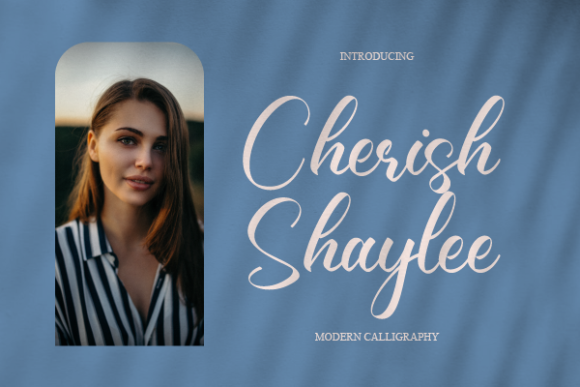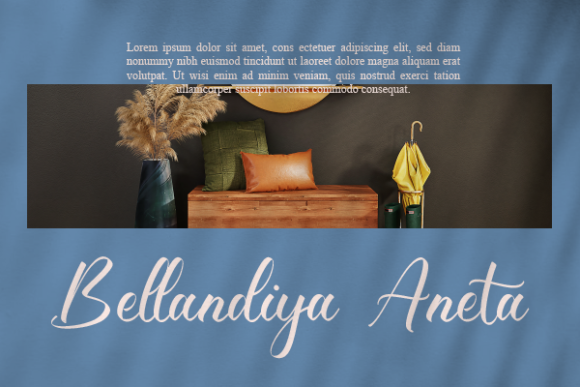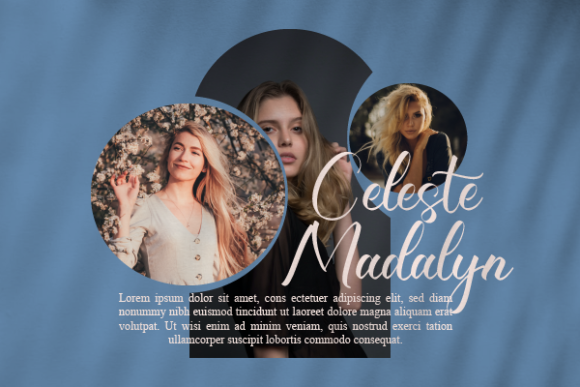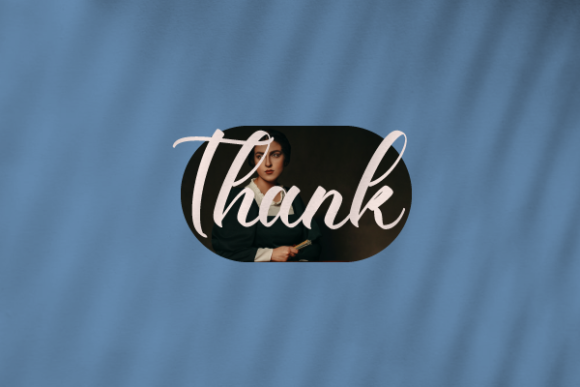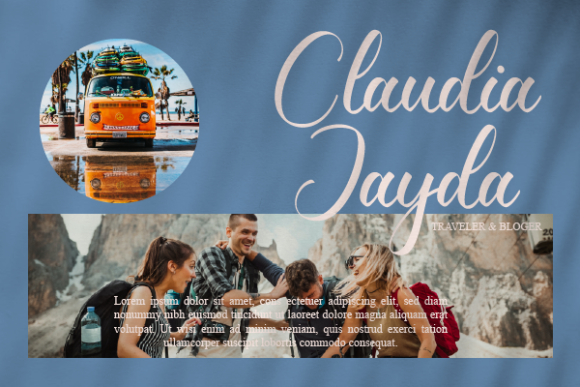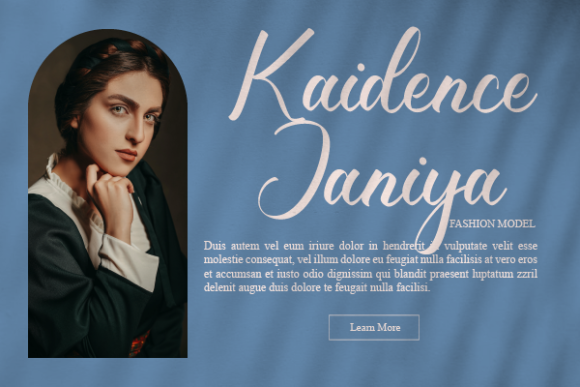
About Cherish Shaylee Font
Cherish Shaylee is a thin lettered and graceful script font. Fall for its ravishing style and use it to create gorgeous wedding invitations, beautiful stationary art, eye-catching social media posts, and much more!